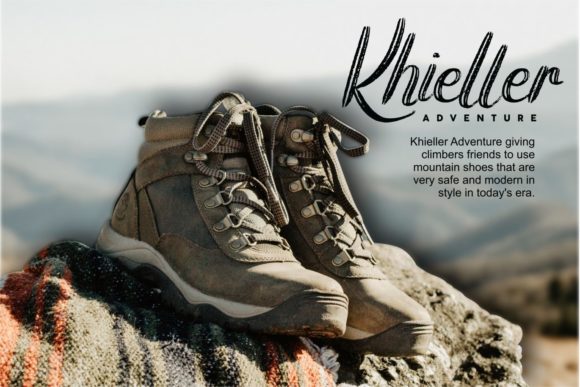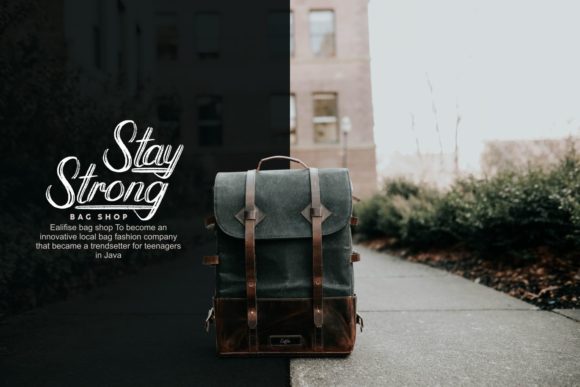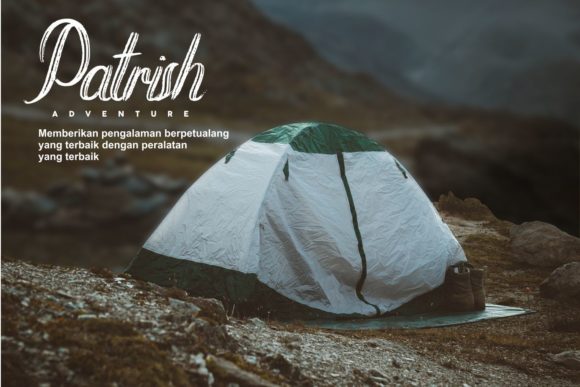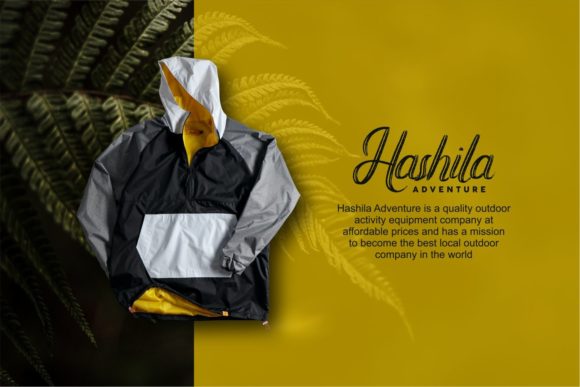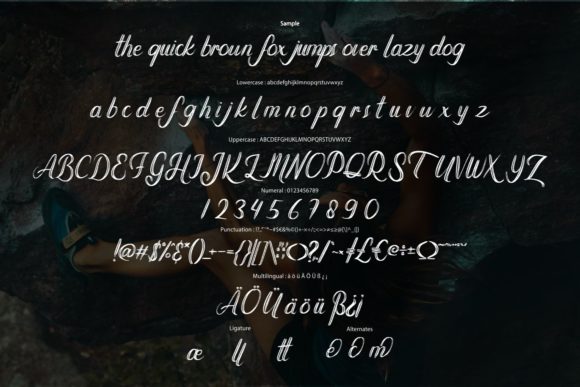
Ealifise Font: Elevate Your Design with Romantic Brushed Calligraphy
In the world of typography, few fonts capture the essence of romance and luxury as effortlessly as Ealifise. This stunning brushed calligraphy typeface is designed to add a touch of elegance and sophistication to any design project. With its unique charm and fluid motion, Ealifise Font is poised to become a favorite among designers and crafters looking to infuse their work with a sense of high-end style.
The Beauty of Ealifise Font
Ealifise is a romantic and brushed calligraphy typeface that boasts characters that dance along the baseline, creating a sense of movement and fluidity. This distinctive feature sets Ealifise apart from more traditional fonts, giving it a unique personality that is both captivating and memorable. The font’s design is characterized by its:
- Fluid strokes: Ealifise’s brushed calligraphy style gives it a soft, organic feel that is reminiscent of hand-painted lettering.
- Romantic flair: The font’s elegant lines and curves evoke a sense of luxury and sophistication, making it perfect for high-end designs.
- Unique character dance: The way Ealifise’s characters move along the baseline creates a sense of energy and dynamism, adding visual interest to any design.
Perfect for Luxury Designs
Ealifise Font is specifically designed to add a luxury spark to any design project. Its high-end aesthetic makes it an excellent choice for:
- Wedding and event designs: Ealifise’s romantic flair and elegant lines make it perfect for wedding invitations, save-the-date cards, and other event-related designs.
- Branding and packaging: The font’s luxurious feel and sophisticated style make it an excellent choice for high-end brands looking to create a premium image.
- Stationery and paper crafts: Ealifise’s unique character and fluid strokes make it a great addition to any paper craft or stationery design.
Tips for Using Ealifise Font
To get the most out of Ealifise Font, consider the following tips:
- Use it sparingly: Ealifise’s luxurious feel can be overwhelming if overused. Use it as an accent font to add a touch of elegance to your design.
- Pair it with a simple font: Combine Ealifise with a clean, simple font to create visual contrast and make your design more readable.
- Experiment with colors: Ealifise looks stunning in metallic colors, pastels, and rich jewel tones. Don’t be afraid to experiment and find the perfect color combination for your design.
Ealifise Font is a romantic and luxurious brushed calligraphy typeface that is sure to elevate any design project. With its unique character dance, fluid strokes, and elegant lines, Ealifise is the perfect choice for designers and crafters looking to add a touch of high-end style to their work. Whether you’re creating wedding designs, branding materials, or stationery, Ealifise Font is sure to make your design shine.